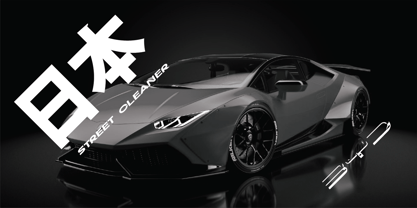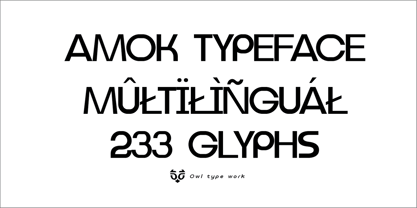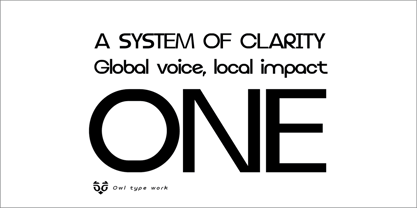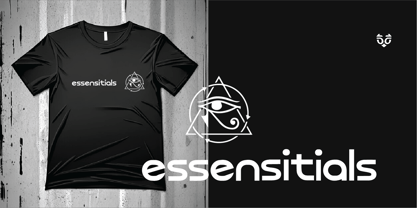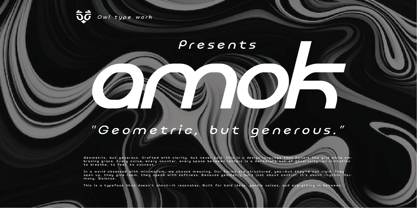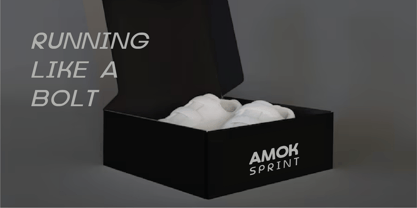
✦ Amok Typeface 2025 – Bold, Modern, and Unstoppable ✦
In the ever-changing world of design, typography is more than just letters—it’s identity, voice, and emotion. Amok Typeface 2025 was born out of rebellion against the ordinary. It’s not just a font; it’s a powerful statement for those who dare to stand out.
Inspired by raw energy, urban movement, and bold visual impact, Amok Typeface is designed to break boundaries and push your creative projects beyond limits. Every curve, every stroke, and every spacing is meticulously crafted for maximum legibility and visual punch.
This typeface is perfect for branding, posters, music covers, digital art, streetwear design, editorial layouts, advertising campaigns, and web typography. Whether you’re a designer, creative director, or an artist looking to elevate your message, Amok Typeface gives your words unstoppable strength.
Imagine your project shouting with confidence—logos that feel alive, packaging that jumps off the shelves, social media posts that grab instant attention. That’s what Amok Typeface 2025 delivers: a blend of modern aesthetics, raw attitude, and timeless readability.
Typography is not decoration. Typography is power. And with Amok Typeface 2025, that power is yours to command.